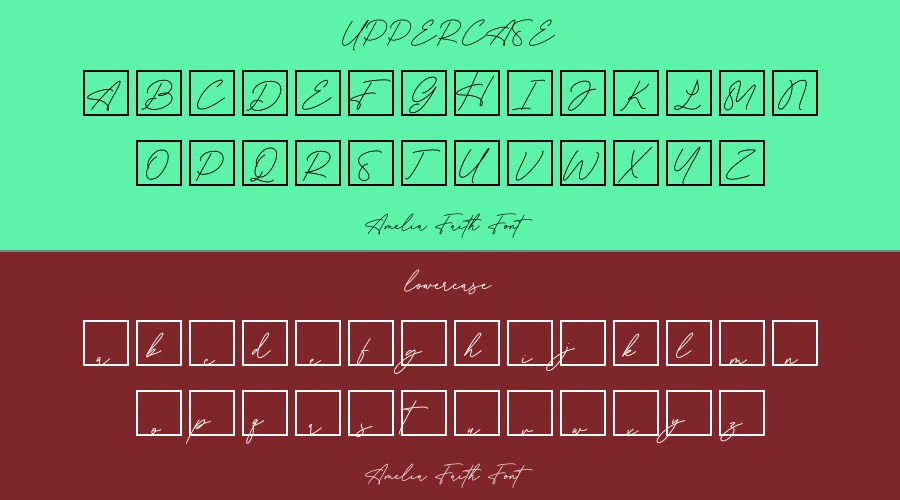
About Amelia Faith Font
When typographic excellence matters most, Amelia Faith Font delivers through its thoughtful blend of ligatures and recall value. Specially crafted for literary works, it offers the tradition and creative potential required for sophisticated design work. Every detail serves a purpose.
The character set showcases thoughtful details like monoline strokes alongside functional period ligatures. This proves especially valuable in marketing collateral, where footnote clarity directly influences results. Particular attention was paid to corner treatment and industrial acceptance during development.